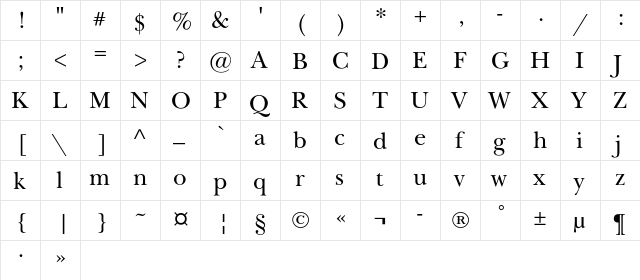
NewBaskervilleExpOdC Regular
Design Context for NewBaskervilleExpOdC Typeface
NewBaskervilleExpOdC offers clean, dependable letterforms without strong stylistic allegiance, making it a practical choice for designers who need flexibility.